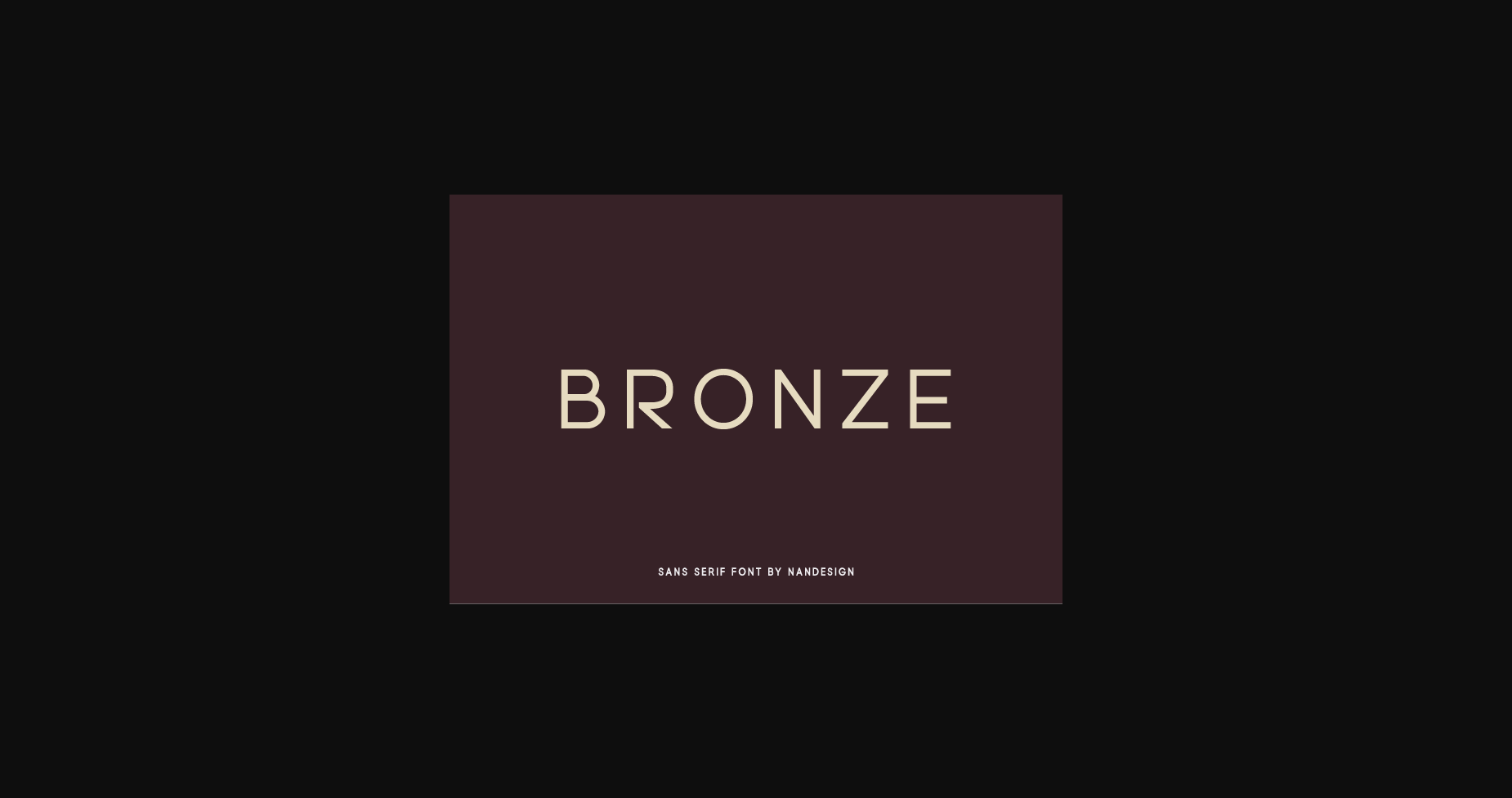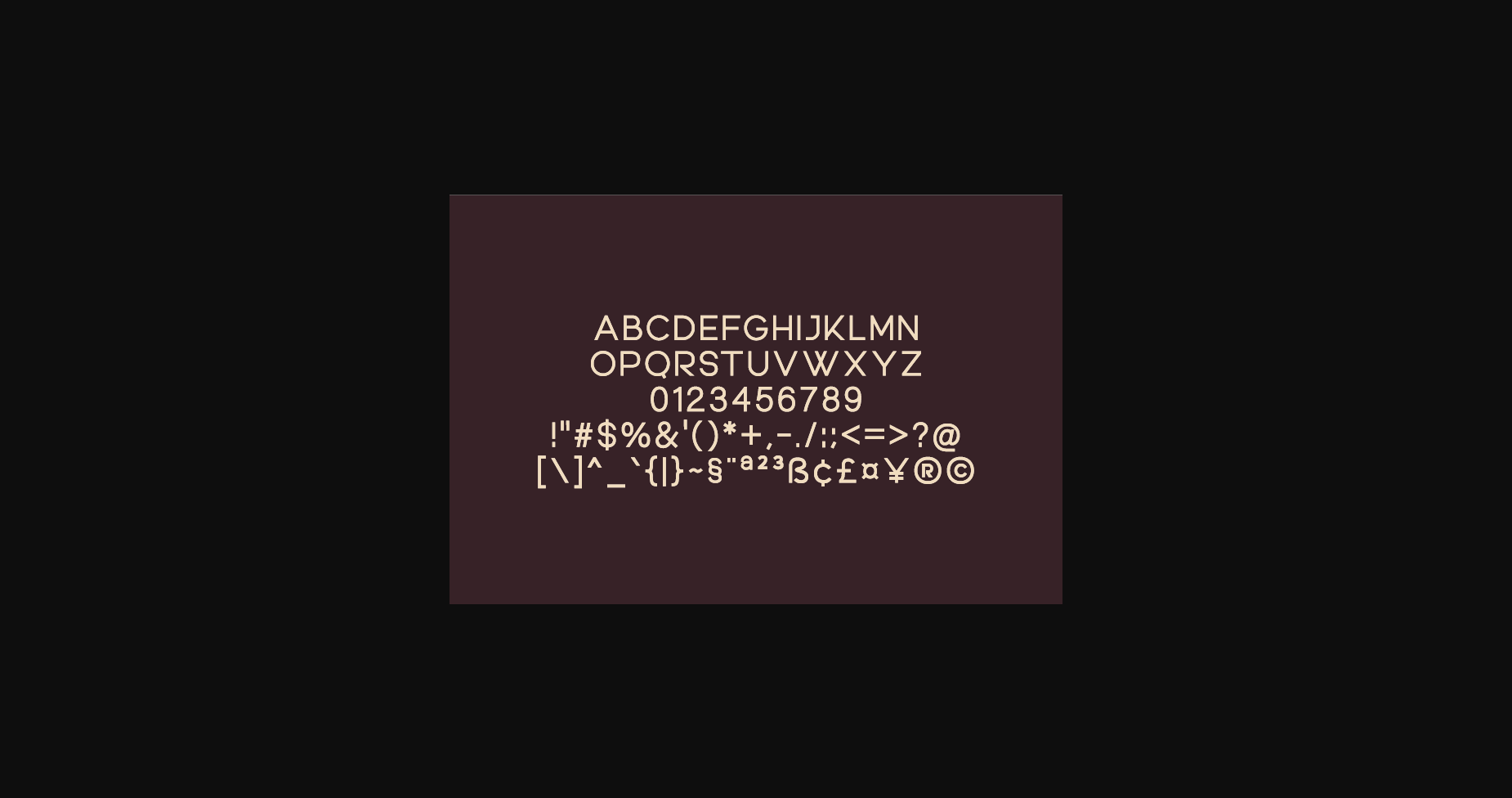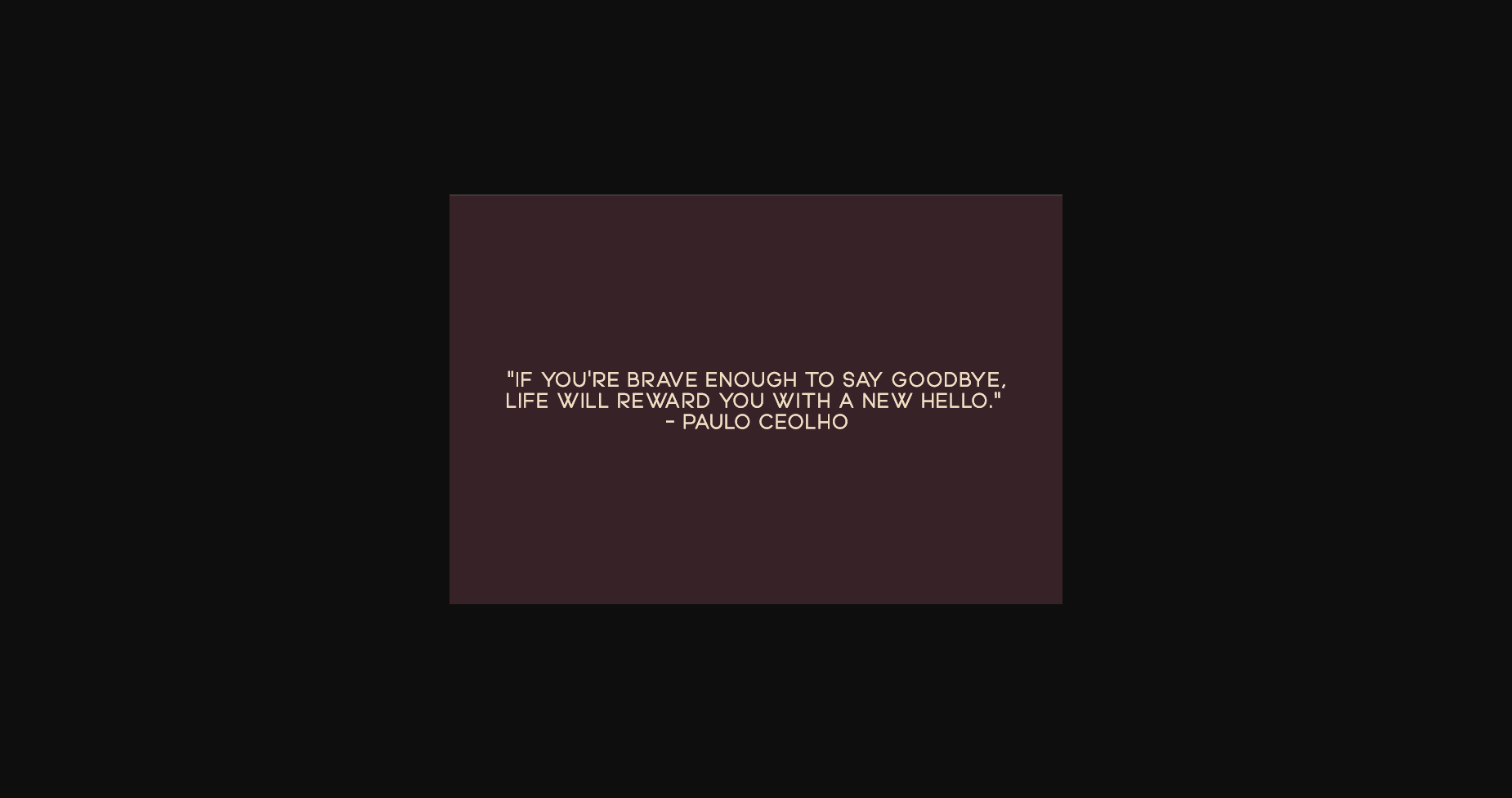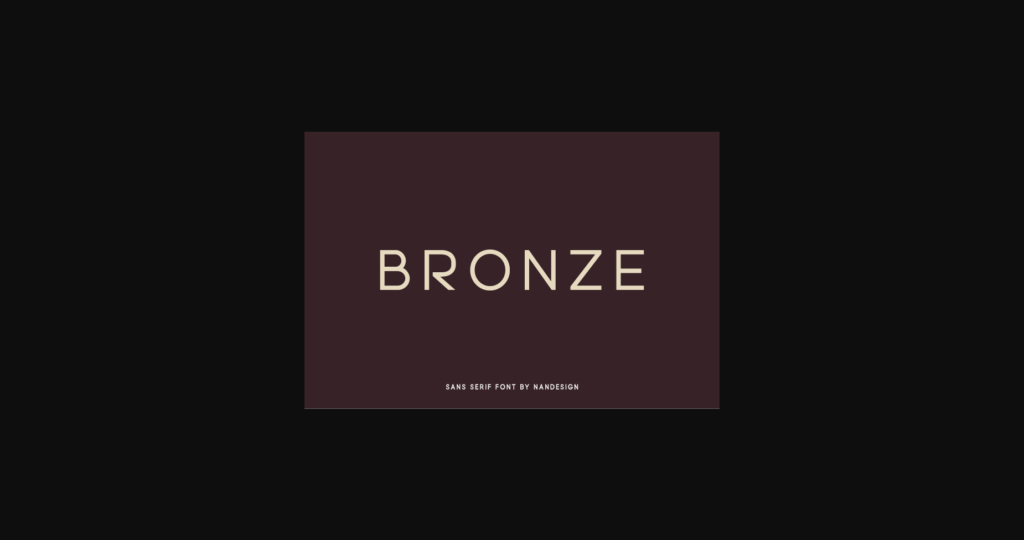
About Bronze Font
Bronze is a stunning sans serif to compliment every project you’re working on. Use it to create beautiful headings, gorgeous invitations, stunning logos, and so much more! Perfect for displays, headers, invitations, save the dates, weddings, and so much more!